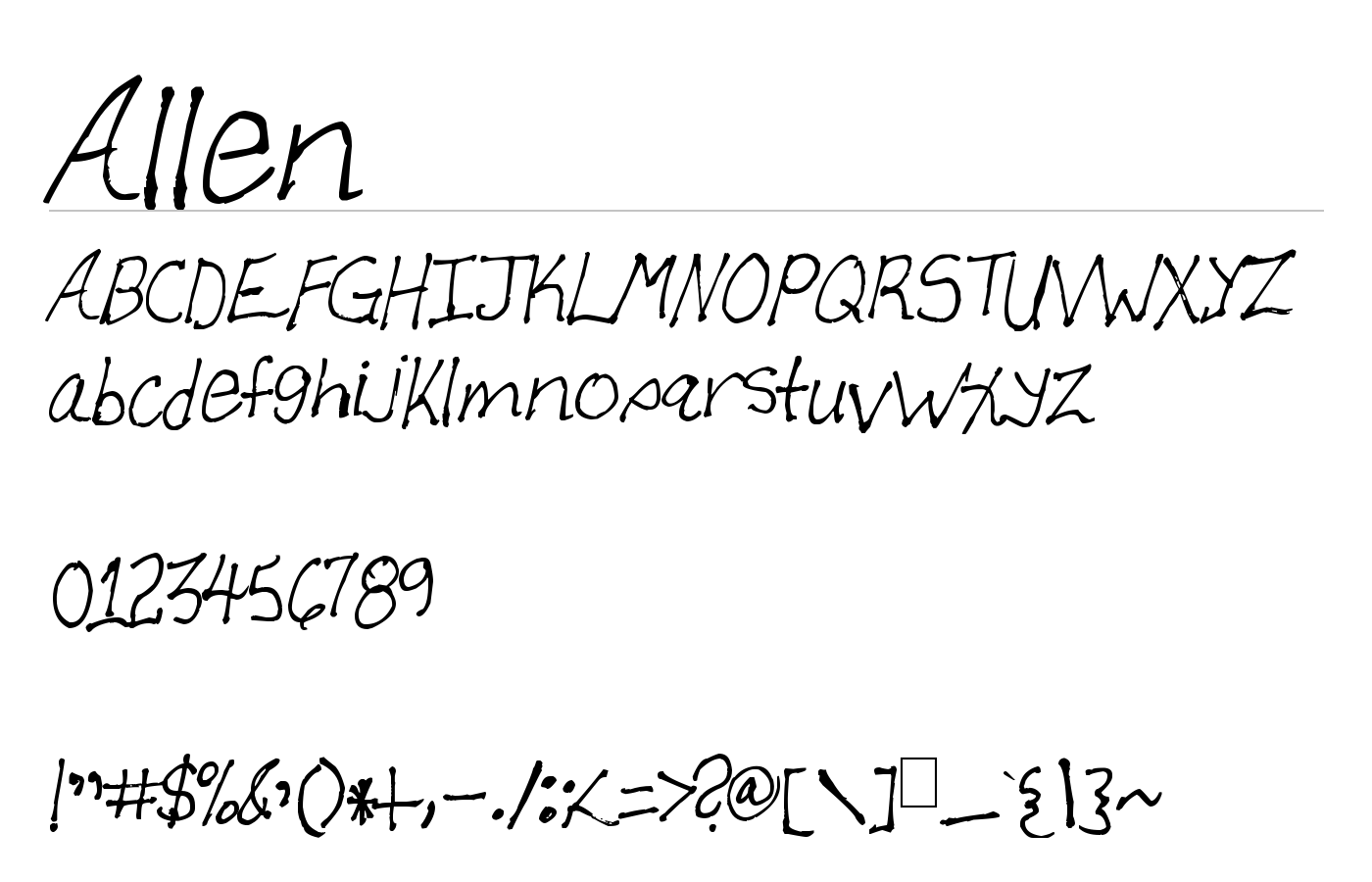
Allen Font is a casual, handwritten sans serif typeface with a loose, organic feel. Its irregular, slender strokes and slightly tilted letterforms create a friendly, approachable vibe, ideal for playful and informal designs. This font works best for personal branding, invitations, and creative projects that benefit from a natural, hand-crafted aesthetic.
Allen Font